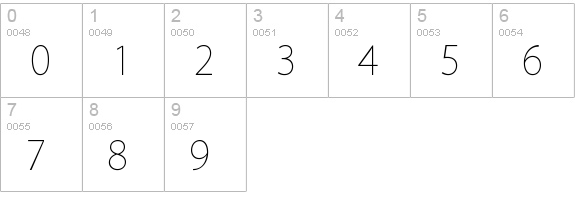
Kozuka Gothic Std EL Font Details
Kozuka Gothic Std EL is a sleek and modern font that exudes professionalism and sophistication. With its clean lines and sharp edges, this typeface is perfect for conveying a sense of elegance and precision. Whether used for headings, body text, or branding, Kozuka Gothic Std EL commands attention and leaves a lasting impression. What makes Kozuka Gothic Std EL even more appealing is that it is available for free download at FontsMarket.com. This means that you can easily access this high-quality font without any cost, making it a valuable addition to your design toolkit. Don't miss out on the opportunity to elevate your projects with the stylish and versatile Kozuka Gothic Std EL font today!